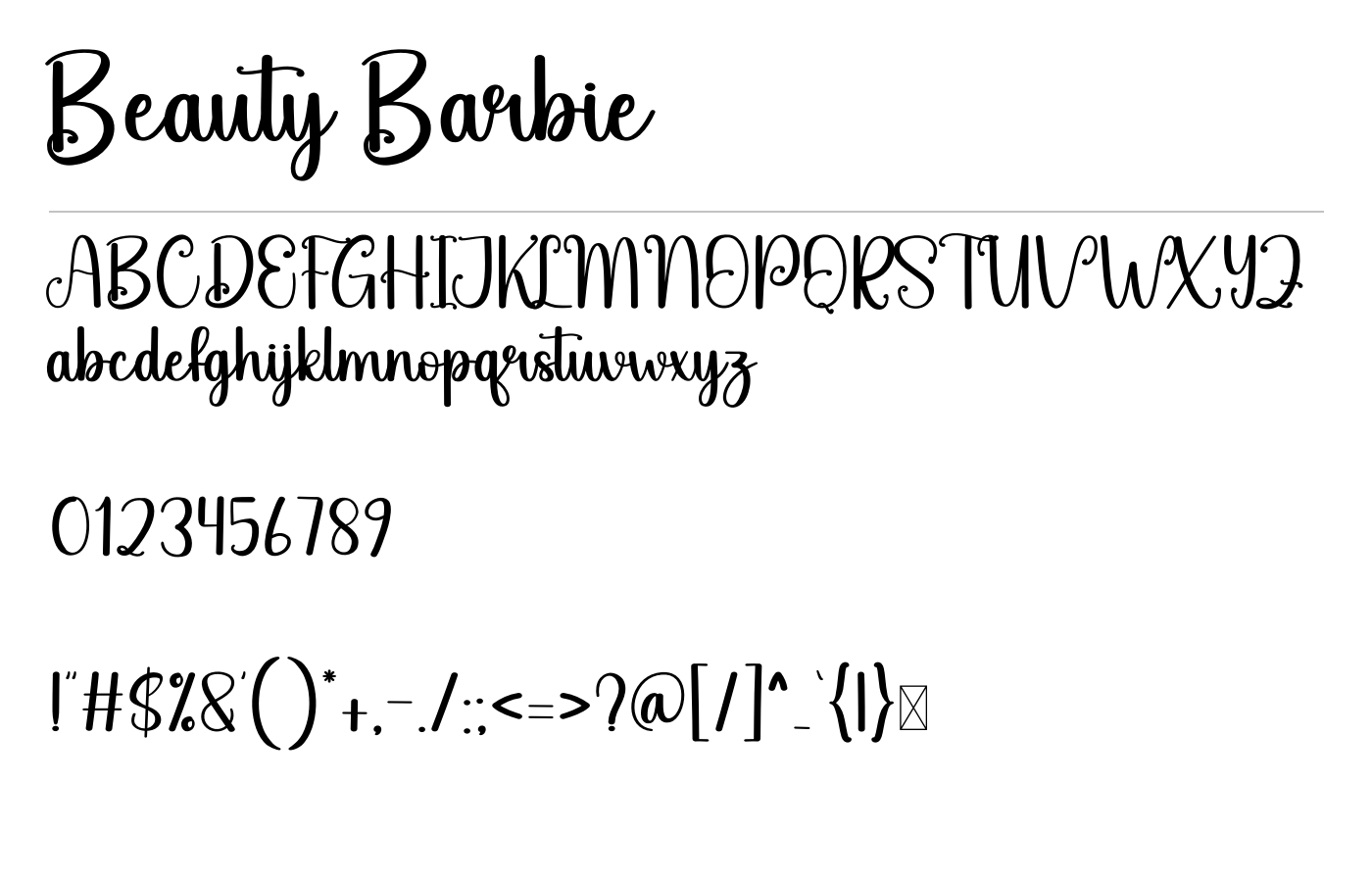
Beauty Barbie is a playful and elegant handwritten script font with a smooth, medium weight and rounded strokes. Its whimsical uppercase letters feature unique curls and loops, while the lowercase forms are clean and flowing, making it ideal for feminine, youthful branding and creative projects. This font works beautifully for logos, invitations, and packaging where a friendly yet stylish touch is desired.
Beauty Barbie Font
About Beauty Barbie Font